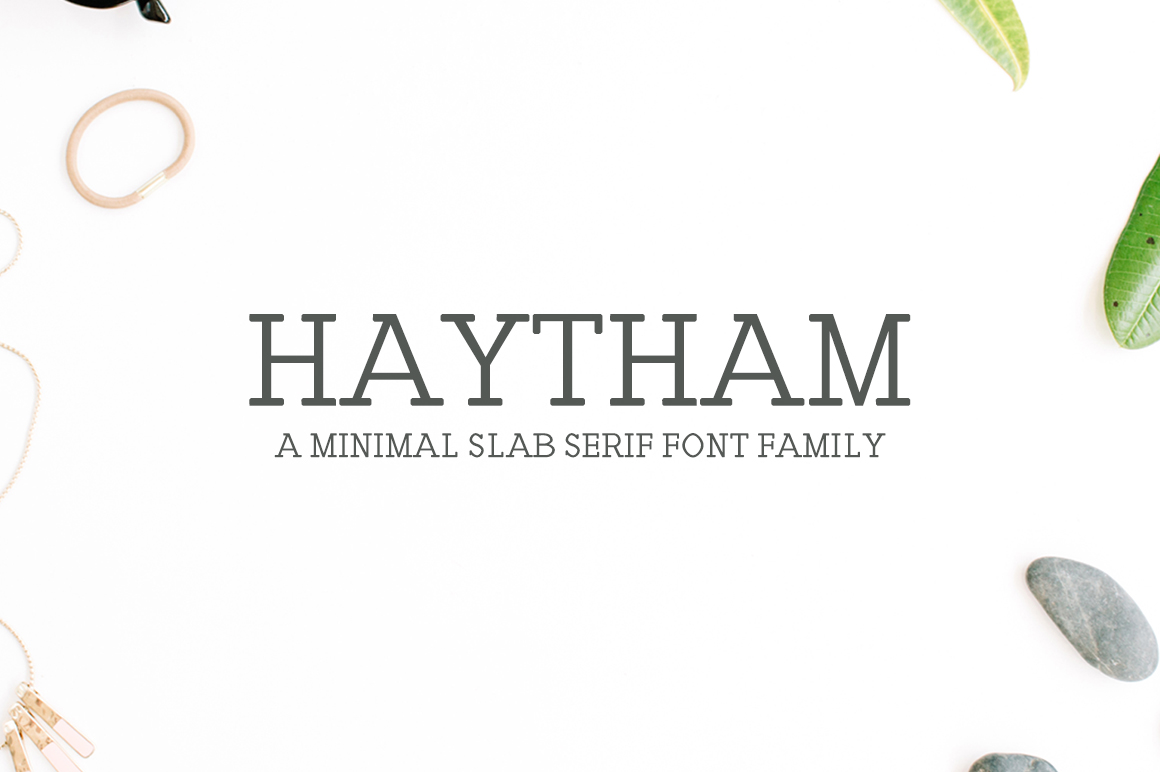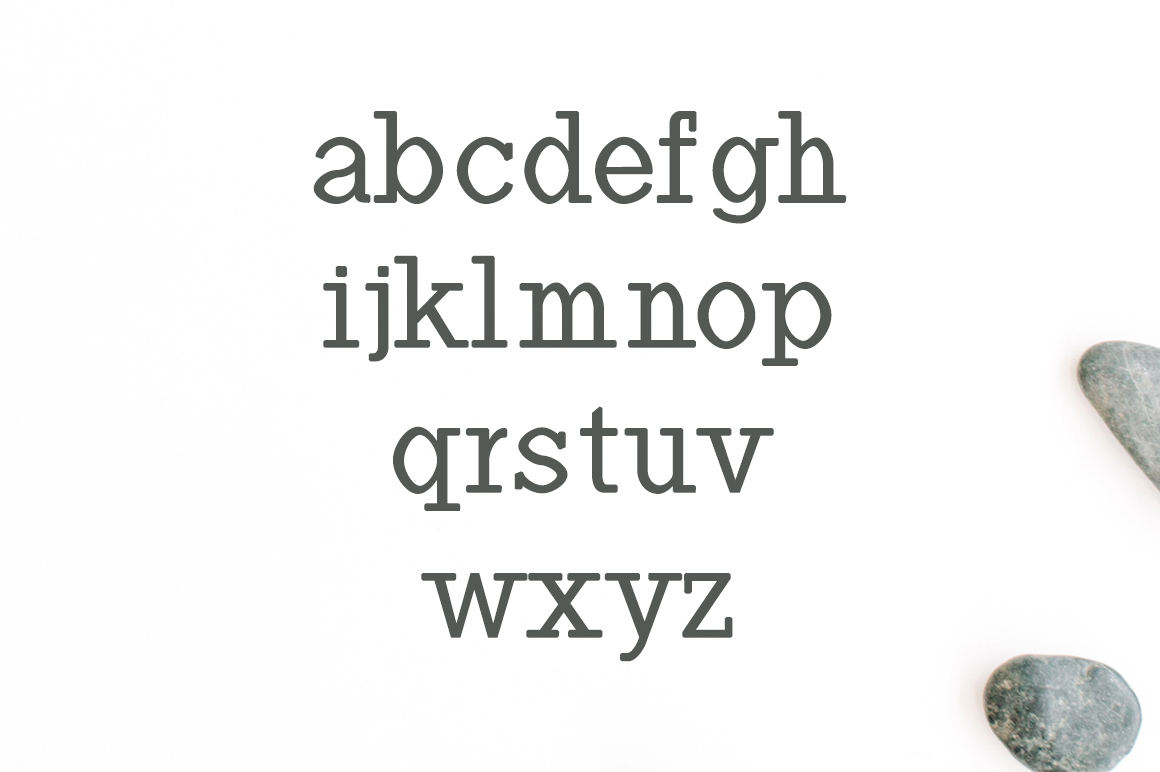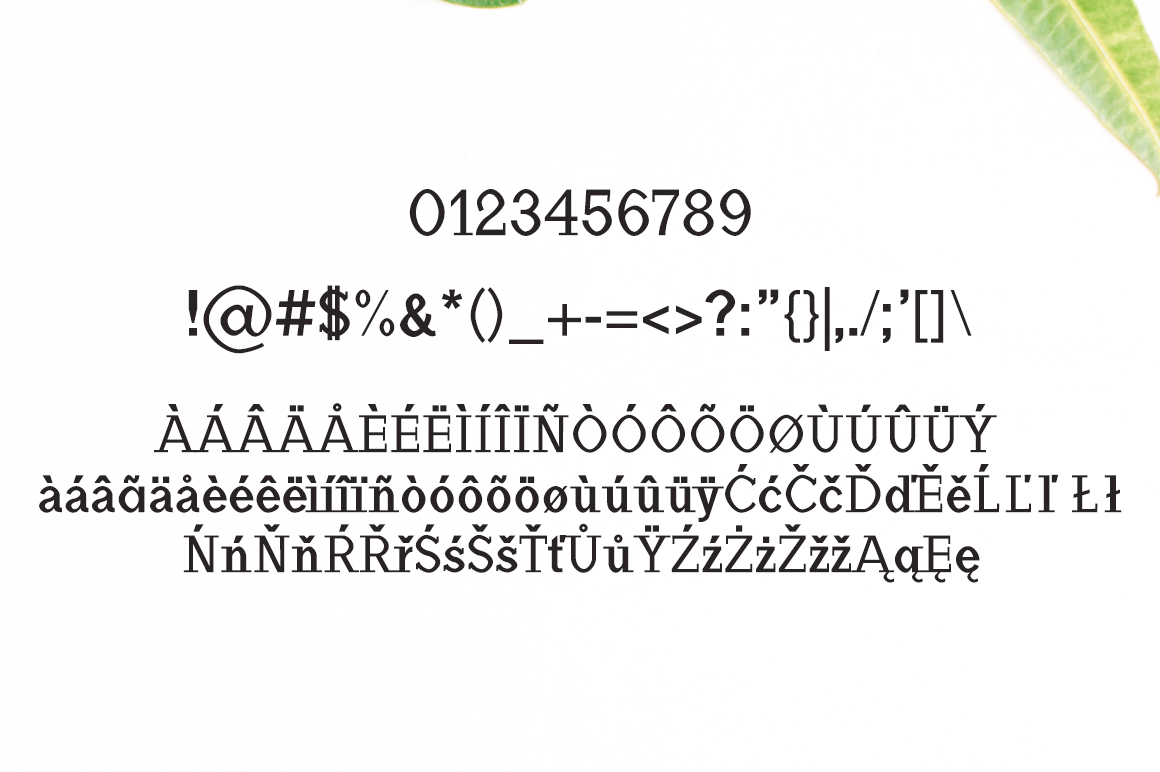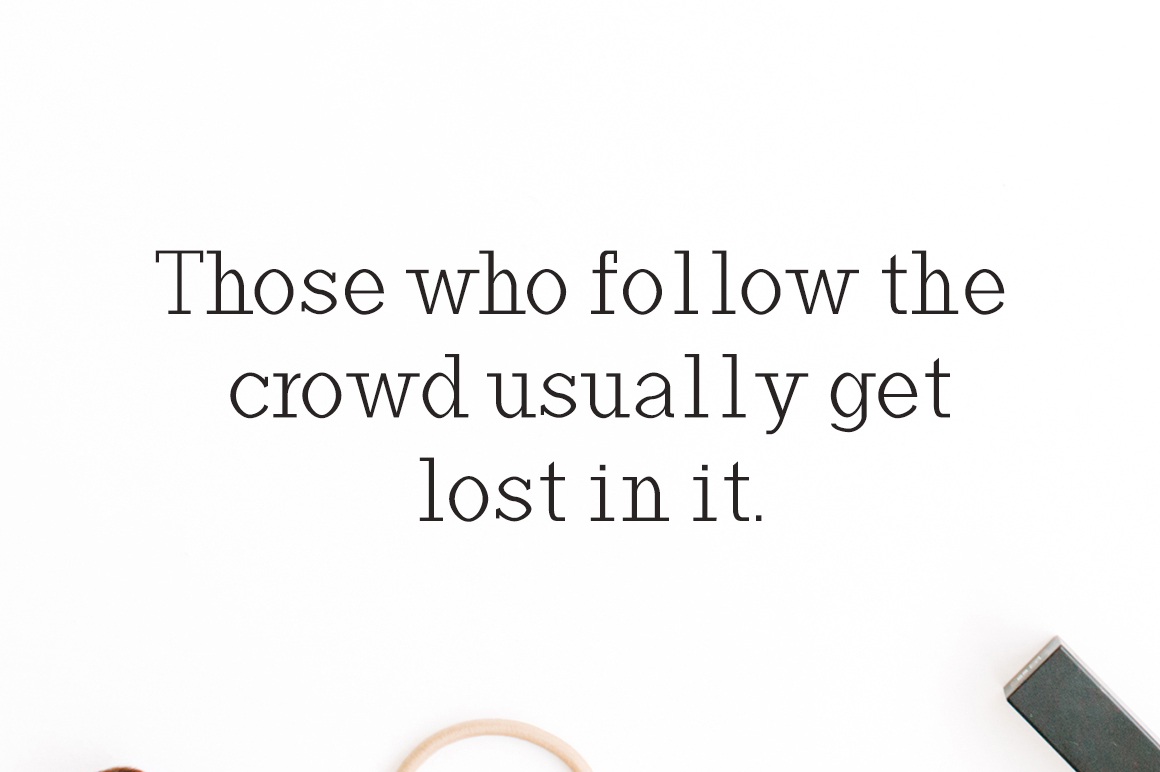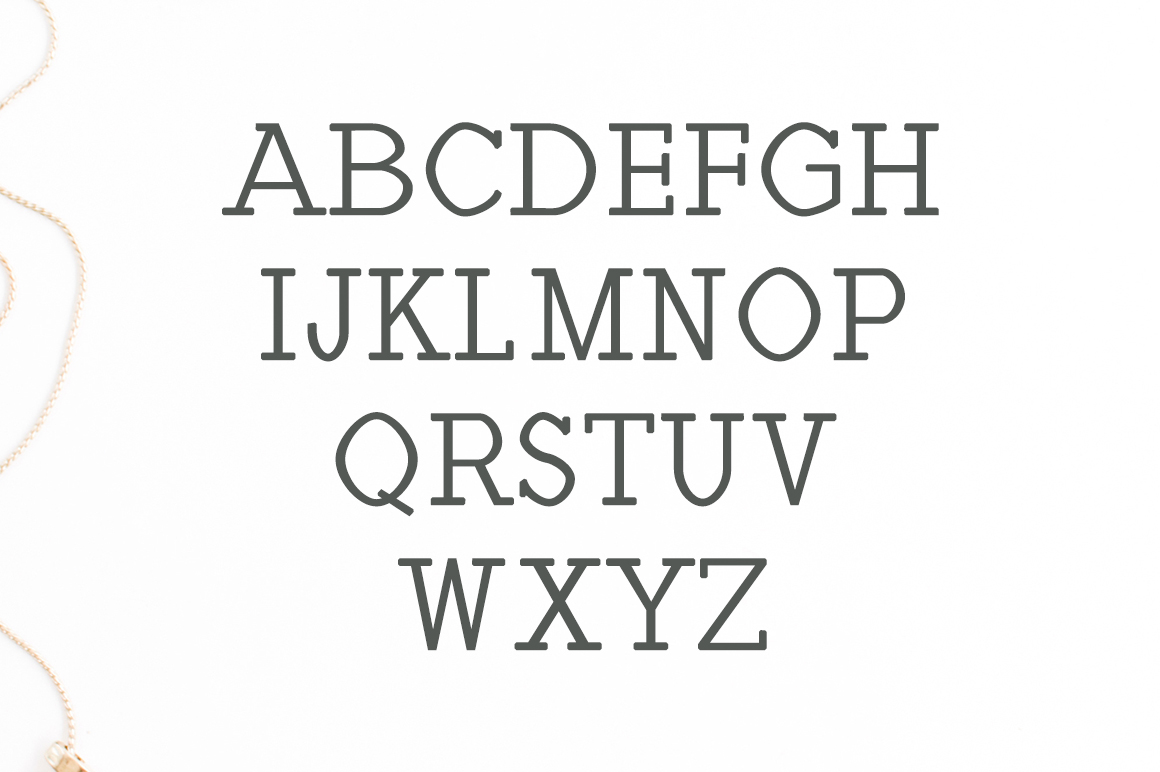
Haytham
Haytham: A Versatile and Modern Slab Serif Font Family
Haytham is a comprehensive slab serif font family that offers designers a powerful and flexible typographic tool. With its 7 unique weights, Haytham provides a wide range of options for various design needs, making it suitable for both print and web projects.
Key Features of Haytham Font
• Seven Weights: Offers a diverse range of weights for versatile typography
• Modern and Clean Design: Features a contemporary aesthetic suitable for various applications
• Versatile Application: Ideal for both print and web projects
• Classy All-Caps Look: Creates an elegant appearance when used in all capitals with wide character spacing
Ideal Uses for Haytham
Haytham’s versatile design makes it particularly well-suited for:
• Editorial layouts and magazine designs
• Branding and logo design
• Web design and digital media
• Advertising and marketing materials
• Book covers and publishing projects
Comparison with Other Slab Serif Fonts
While Haytham shares characteristics with other slab serifs like Tecnica Slab Family, its range of weights and modern design set it apart. Unlike more traditional slab serifs such as Osgood Slab, Haytham offers a more contemporary approach to typography while maintaining the classic slab serif structure.
When incorporating Haytham into your designs, consider the following tips:
• Experiment with different weights to create hierarchy and visual interest in your layouts
• Use all-caps with wide character spacing for a classy, elegant look
• Pair with sans-serif fonts for a balanced, modern aesthetic
• Utilize its range of weights for both headlines and body text to maintain consistency
Haytham is an excellent choice for designers looking for a modern and versatile slab serif font family. Its range of weights and clean design make it stand out in the world of typography. Whether you’re working on logo designs, editorial layouts, or creating eye-catching website headers, Haytham offers the perfect blend of classic structure and contemporary style.
Explore how Haytham can elevate your design projects with its modern aesthetic and versatile range of weights. From branding to editorial design, this font family provides the tools to create impactful and stylish typography that stands out in various design contexts.